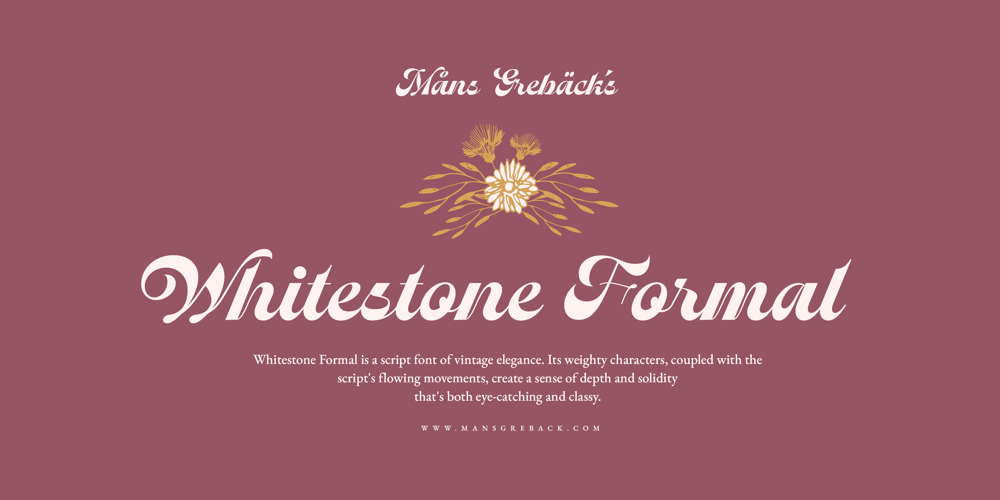
Whitestone Formal Font Family was designed by Måns Grebäck and published by Mans Greback. Whitestone Formal contains 4 styles and family package options. Whitestone Formal is a script font of vintage elegance. Its weighty characters, coupled with the script’s flowing movements, create a sense of depth and solidity that’s both eye-catching and classy. The Victorian inspiration is evident in every curve, bringing an air of decorative opulence to any text. Crafted with attention to detail, Whitestone Formal adapts its historical influences to fit contemporary needs, offering a timeless appeal that transcends trends. The font is built with advanced OpenType functionality and guaranteed top-notch quality, containing stylistic and contextual alternates, ligatures and more automatic and manual features; all to give you full control and customizability. It has extensive lingual support, covering all Latin-based languages, from North Europa to South Africa, from America to South-East Asia. It contains all characters and symbols you’ll ever need, including all punctuation and numbers. Created by Mans Greback, Whitestone Formal is a blending of historical inspiration and modern design. Mans’ work reflects typographic traditions and creative vision.